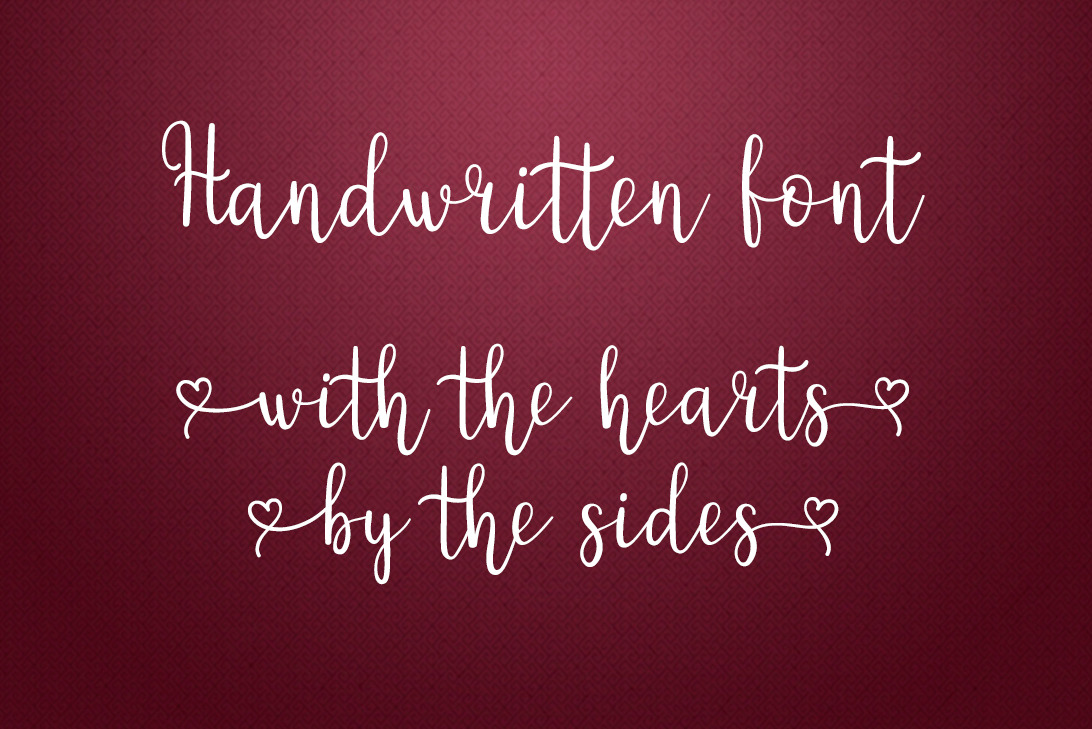
Love font
This romantic font is perfect for your projects. It was made very carefully. You may type your text with or without the hearts by the sides.
You will get the set of lowercase and uppercase letters, numerals and punctuation, lowercase letters with the heart swashes and uppercase letters with the heart swashes.